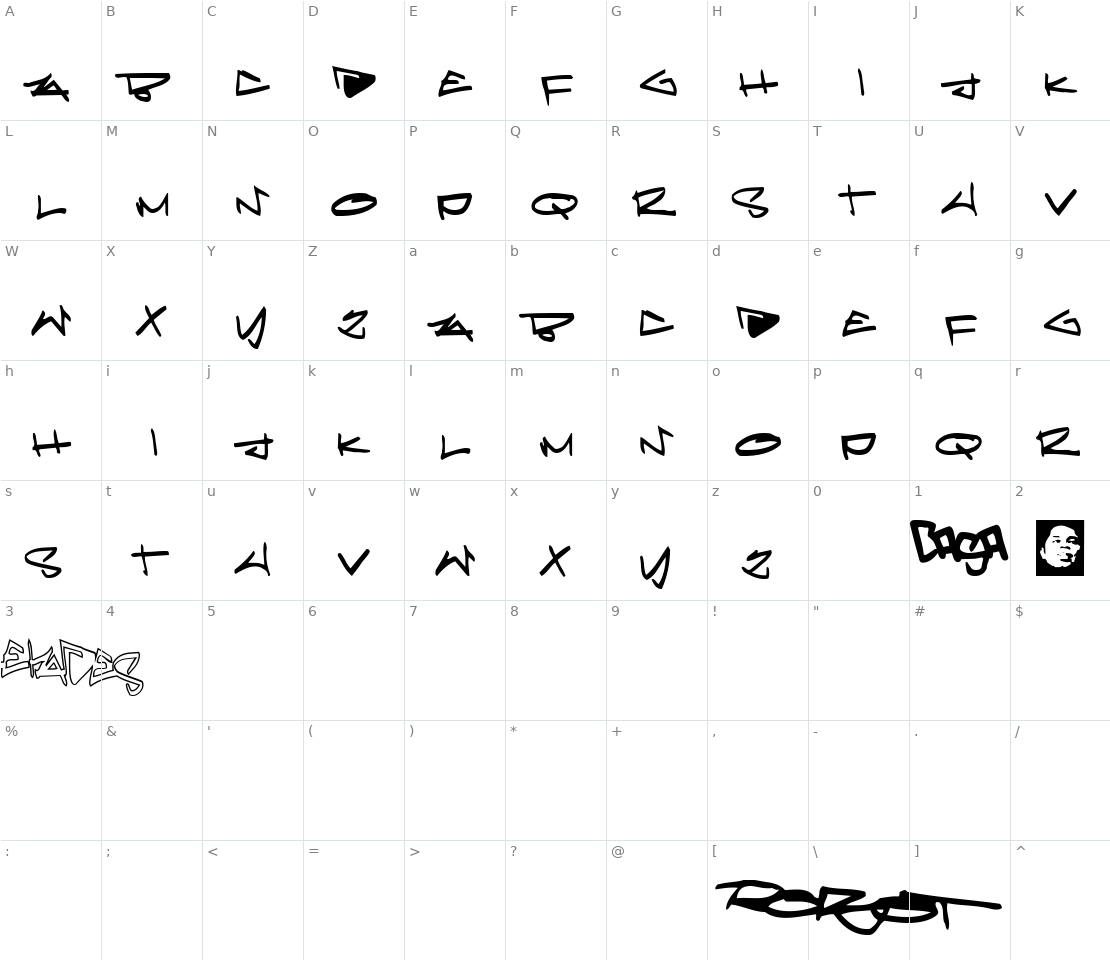
Pleiades
Pleiades is a bold, angular graffiti face from Casa Phunk Phonts with sharp, aggressive strokes that feel like they were thrown up fast on a concrete wall. The letterforms carry a raw, street-level energy with jagged edges and a grunge texture that keeps things gritty and authentic. Built for headlines, posters, and urban-themed projects where clean type would feel out of place.